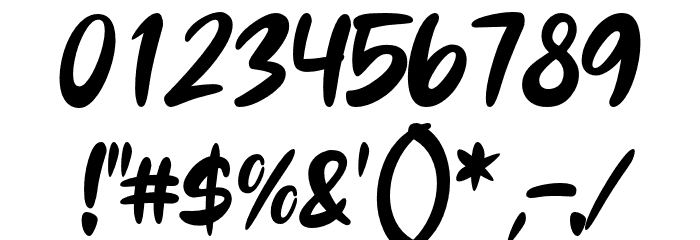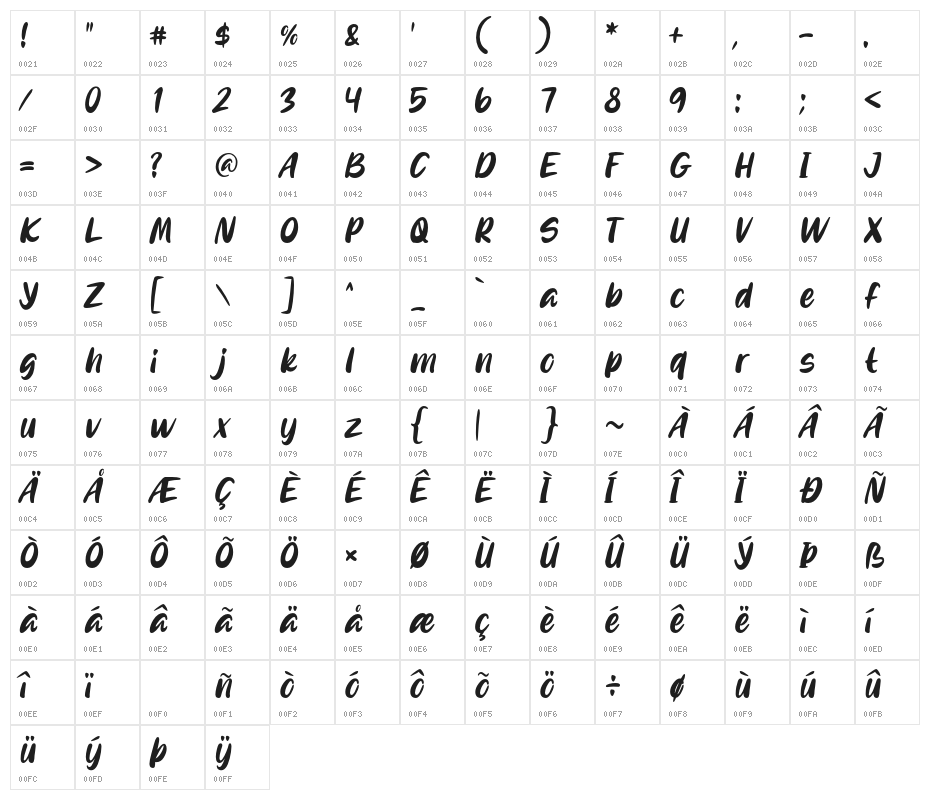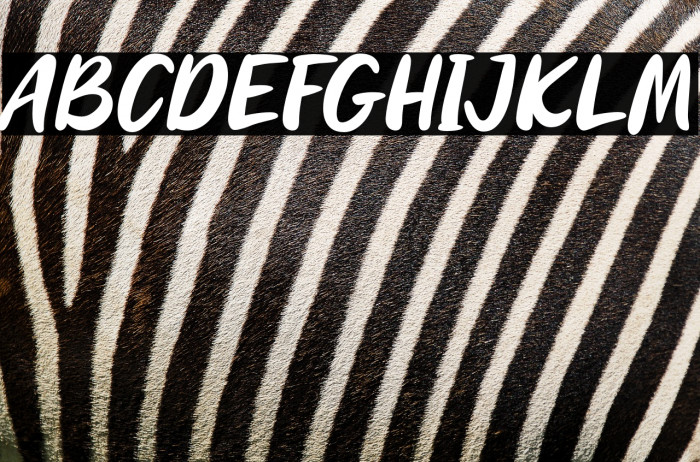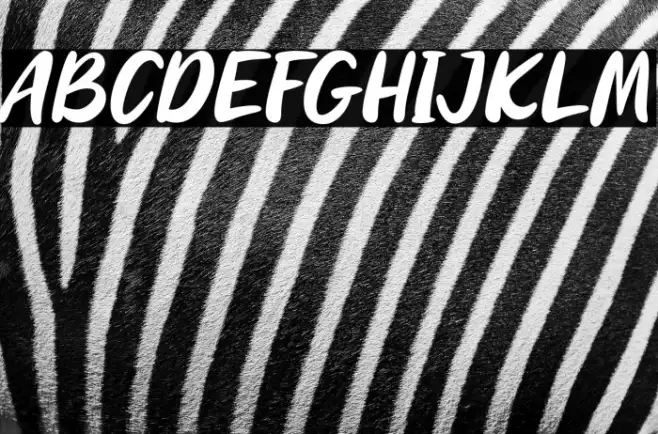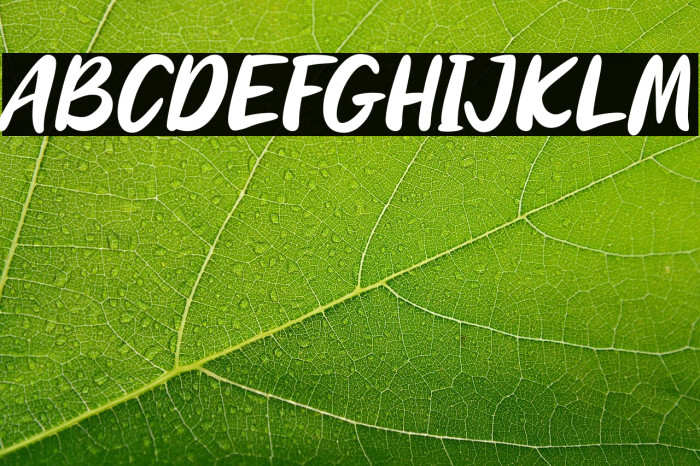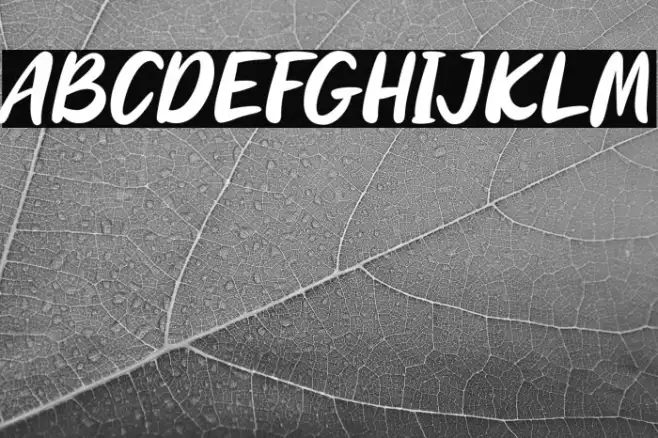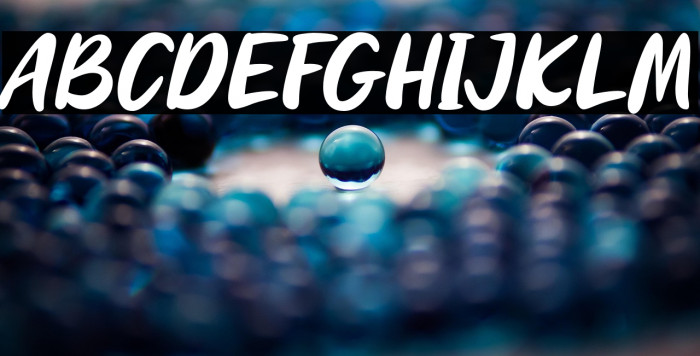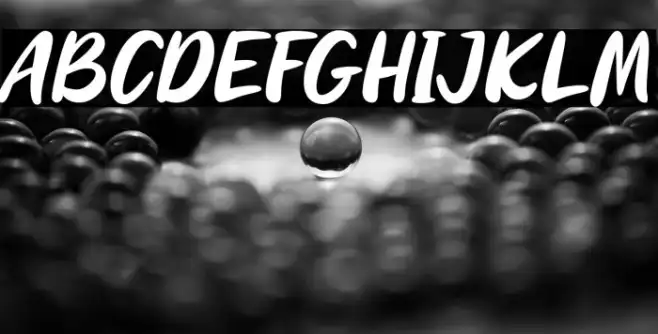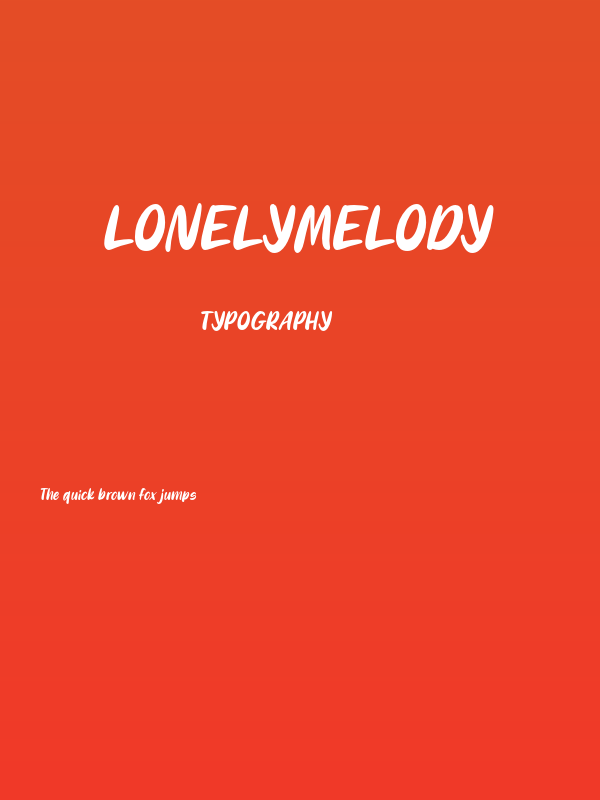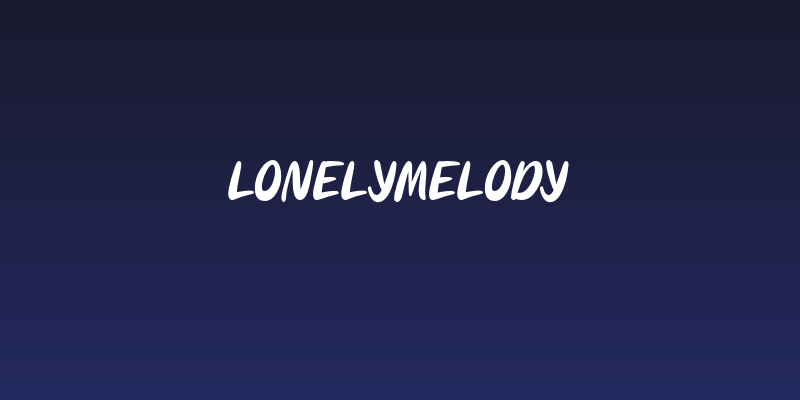
LonelyMelody Font
LonelyMelody Description
This font exhibits a bold and dynamic handwritten style, characterized by its fluid and expressive strokes. The letters are slightly slanted, giving a sense of movement and energy. Each character is crafted with a consistent thickness, providing a uniform appearance across the alphabet. The uppercase letters are prominent and well-defined, while the lowercase letters maintain a playful and approachable feel. Numbers and special characters are integrated seamlessly, ensuring versatility in various design contexts. The overall aesthetic is modern yet retains a touch of classic handwritten charm, making it suitable for a wide range of creative applications.
| Proposed Projects | Ideal for branding, social media graphics, invitations, and posters where a personal touch is desired. |